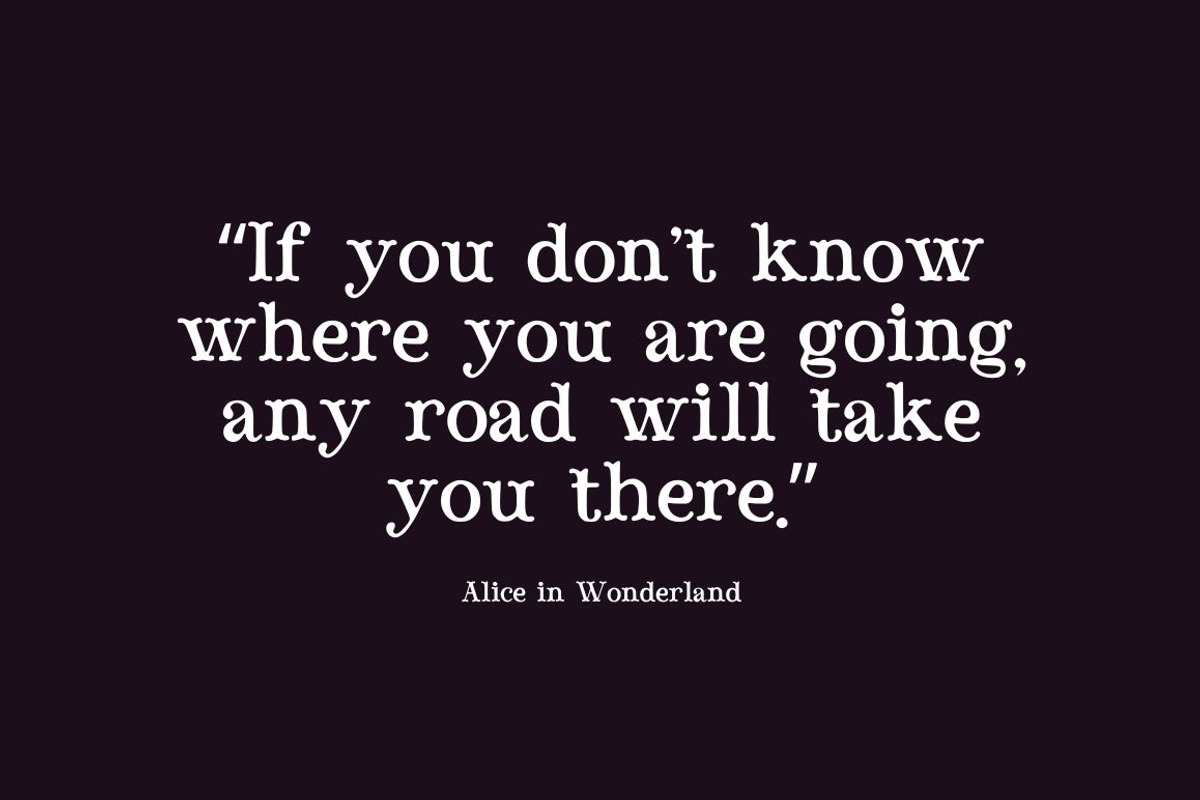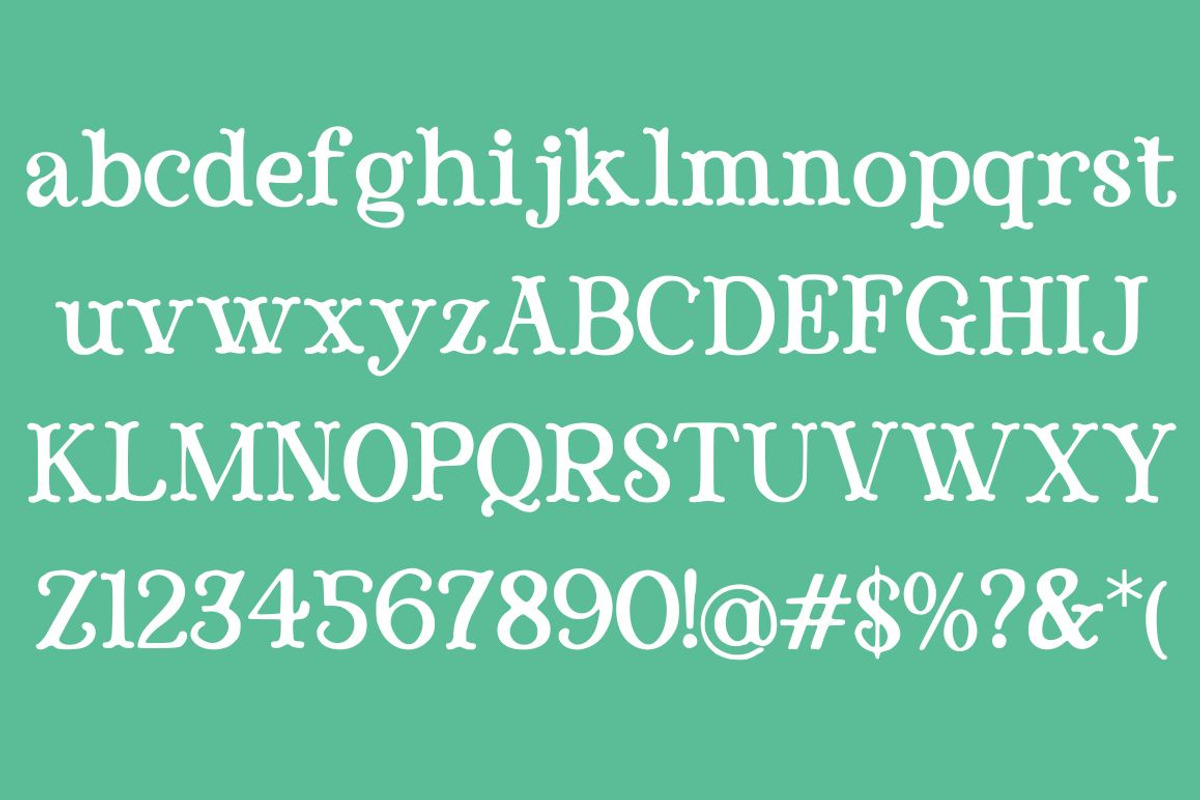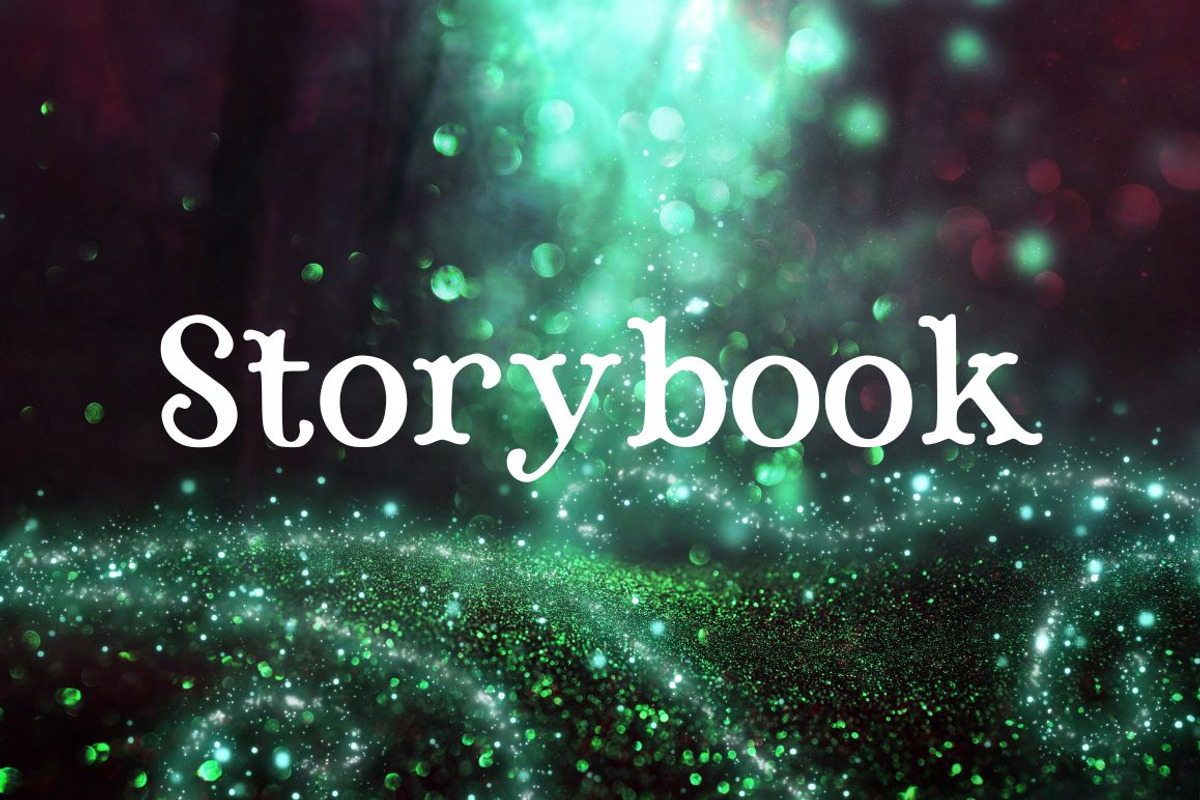
Storybook Serif
Storybook is a whimsical, curvy serif font that evokes the magic of classic fairy tales. With its delicate swashes and playful letterforms, it feels straight out of an enchanted woodland or an old storybook page. Perfect for fantasy-inspired branding, children’s books, or anything that needs a touch of wonder and nostalgia.